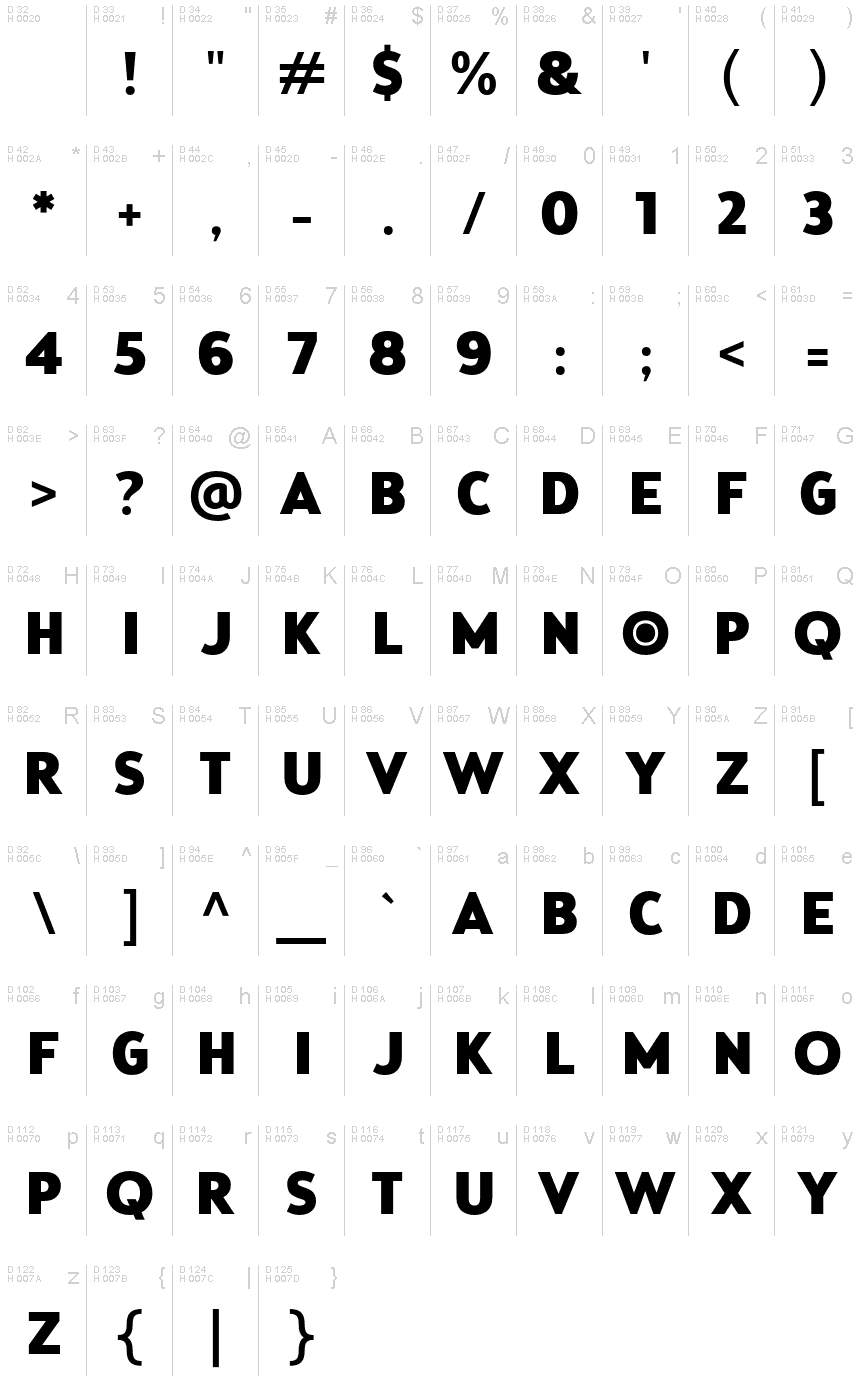
Hibo-Regular
Hibo, the extra-bold sans serif font by Faqih Fawaji, is a powerful and versatile typeface that commands attention. Its clean, modern lines make it perfect for digital projects such as website headers, logos, and social media graphics. Hibo's bold weight ensures maximum impact in print materials like posters, flyers, and packaging. With its sleek design and legibility at smaller sizes, this font is also suitable for body copy in magazines or annual reports. Bring a touch of sophistication to your next project with Hibo – the bold sans serif font that demands to be noticed.